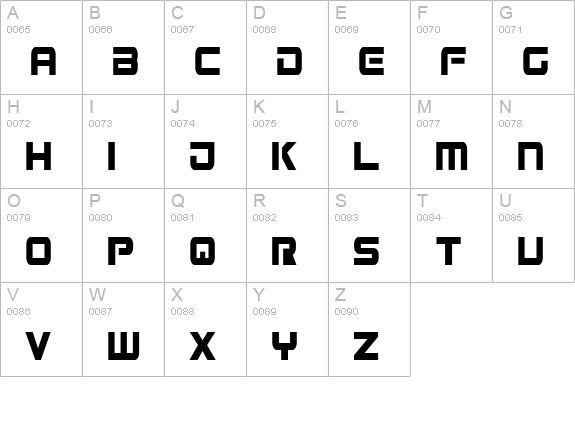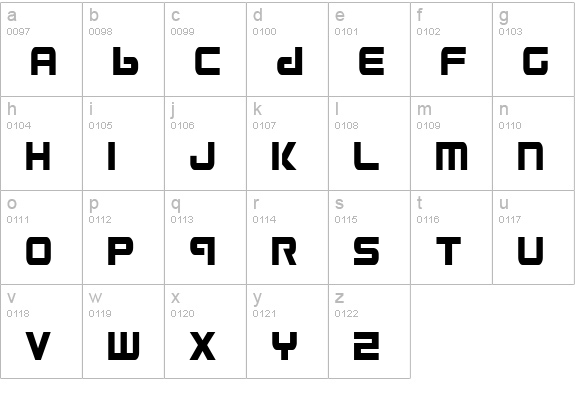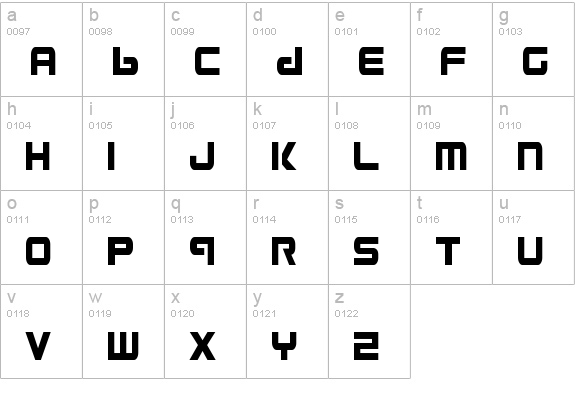
Gunship Condensed is a distinctive, condensed-width variant in the Gunship typeface family \xE2\x80\x94 well suited to design and typography projects.
Gunship Condensed font is a sleek and modern typeface that exudes a bold and powerful presence. Its condensed design gives it a strong and commanding look, making it perfect for headlines, titles, and branding projects. The sharp edges and clean lines of this font lend a sense of precision and professionalism to any design. What makes Gunship Condensed font even more appealing is that it is available for free download at FontsMarket.com. This means you can easily add this striking font to your collection without any cost, making it a valuable resource for both personal and commercial projects. Don't miss out on this opportunity to elevate your designs with the impactful style of Gunship Condensed font.